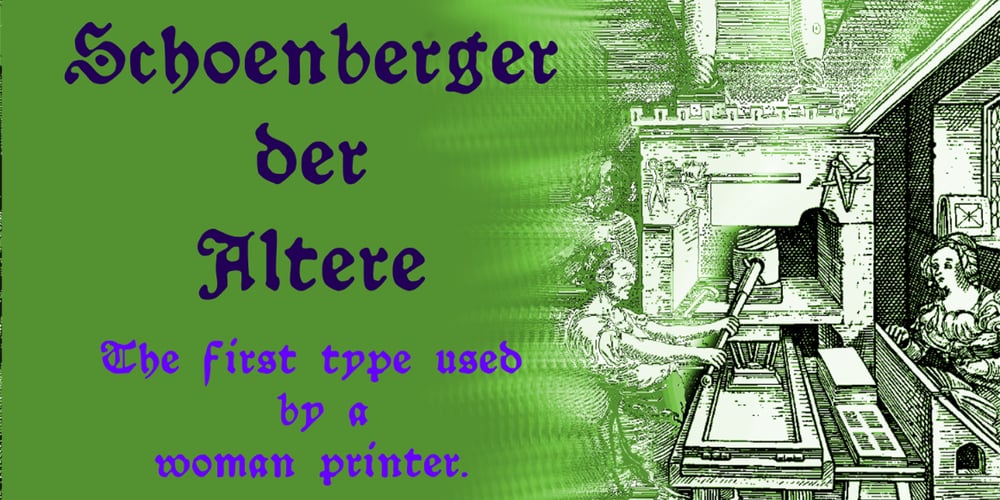
Schoensperger Der Altere Font Family was designed by Shane Brandes and published by Proportional Lime. Schoensperger Der Altere contains 4 styles and family package options. Johann Schönsperger der Ältere was a the printer in Augsburg Germany during the last 20 years of the 15th century. He printed several editions of a pre-Luther bible. This particular font is interesting in that it was used by the first female printer, Anna Rügerin, who was Johann’s sister. The exemplar for this font is GTF 1:120G, and was used in her edition of Eike of Repgow’s Sachsenspiegel.